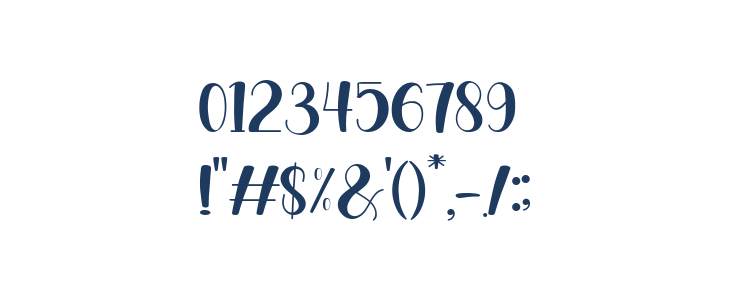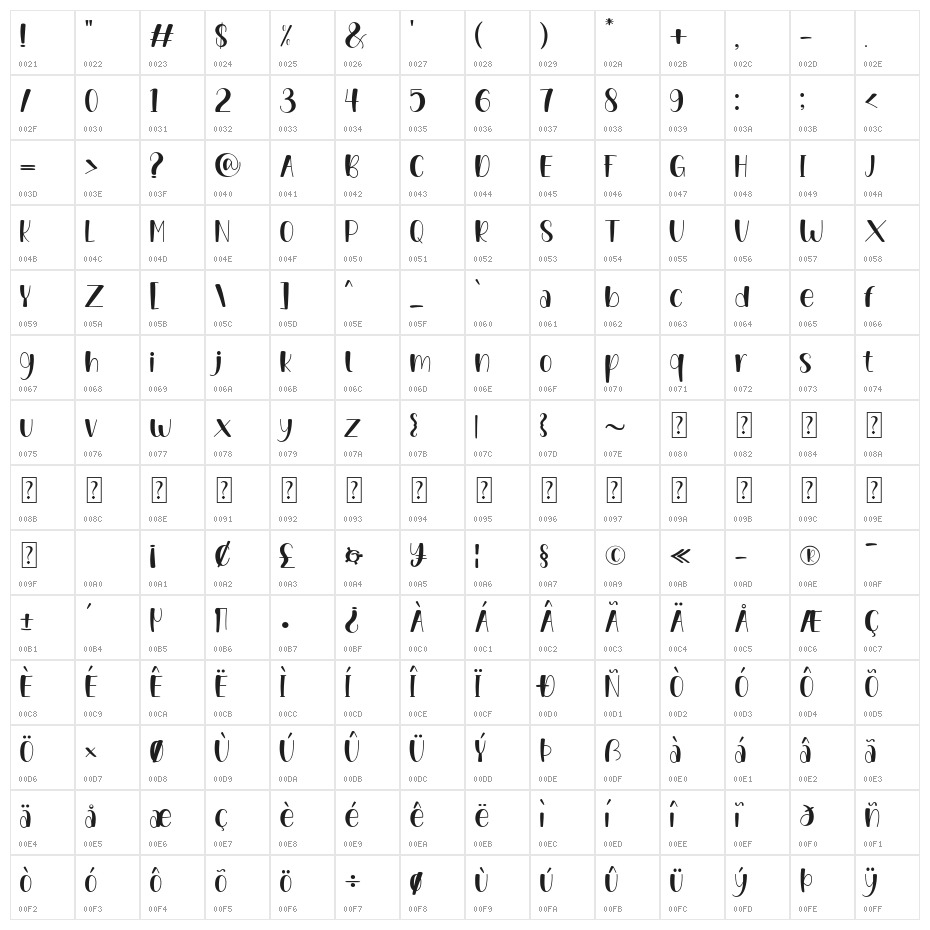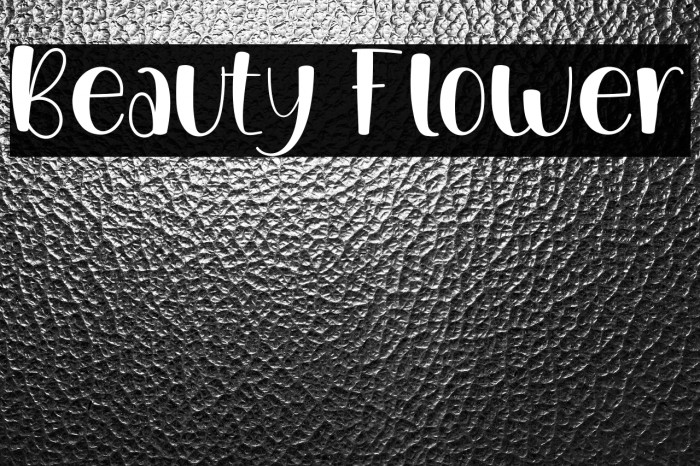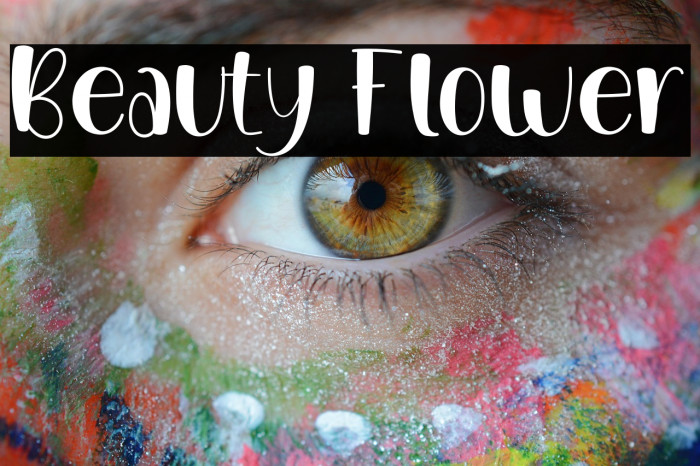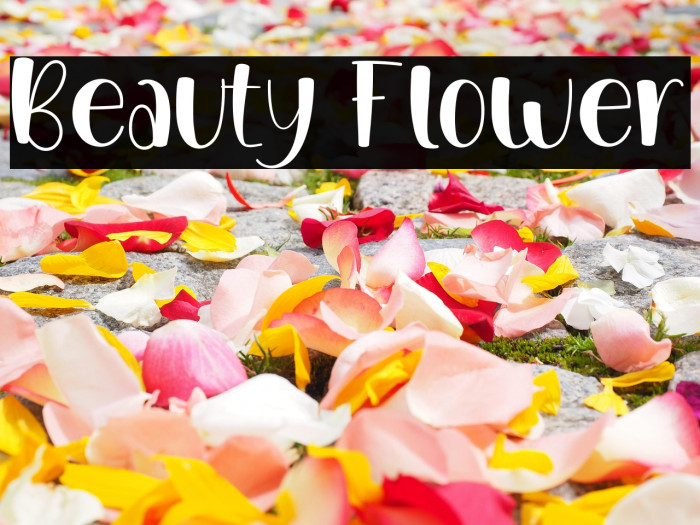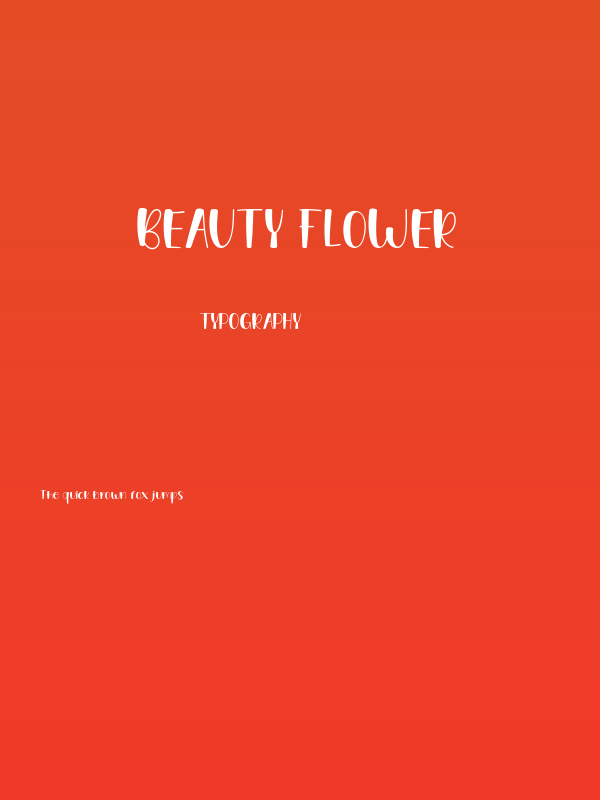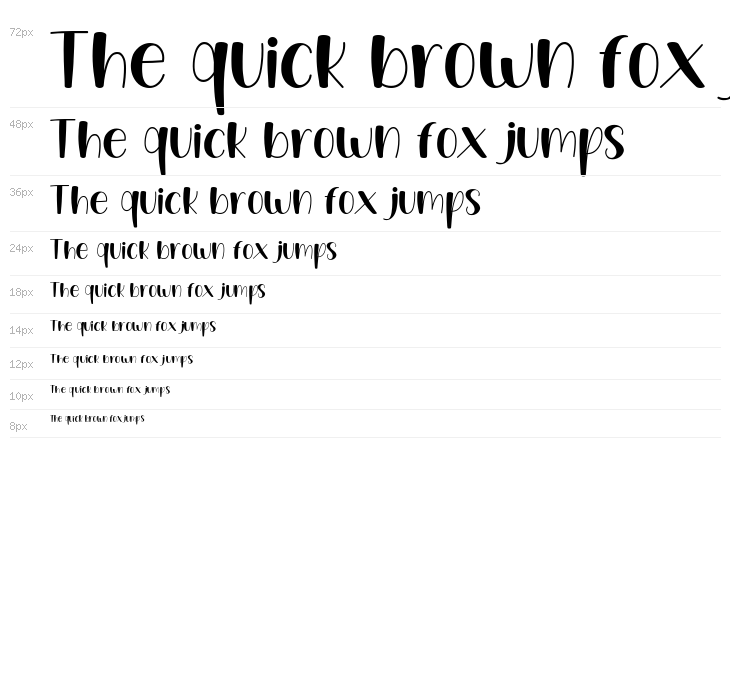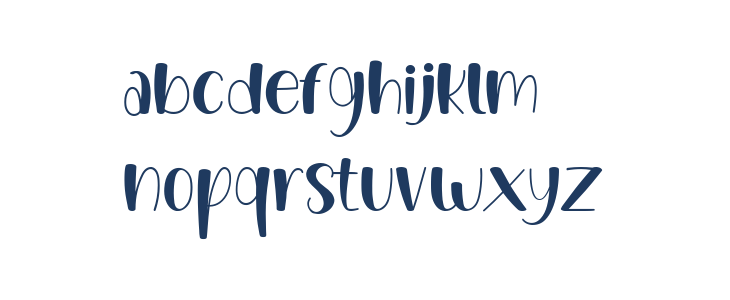
Beauty Flower Font
Beauty Flower Description
This font features a playful and whimsical style, characterized by its flowing, handwritten appearance. The uppercase letters are bold and slightly irregular, giving a sense of movement and personality. The lowercase letters maintain a consistent style, with some characters featuring unique loops and curves that add to the font's charm. The numbers are rounded and maintain the playful aesthetic, while the special characters are creatively designed to match the overall style. This font is perfect for projects that require a touch of fun and creativity, such as invitations, greeting cards, or playful branding.
| Proposed Projects | Ideal for invitations, greeting cards, playful branding, and creative projects. |